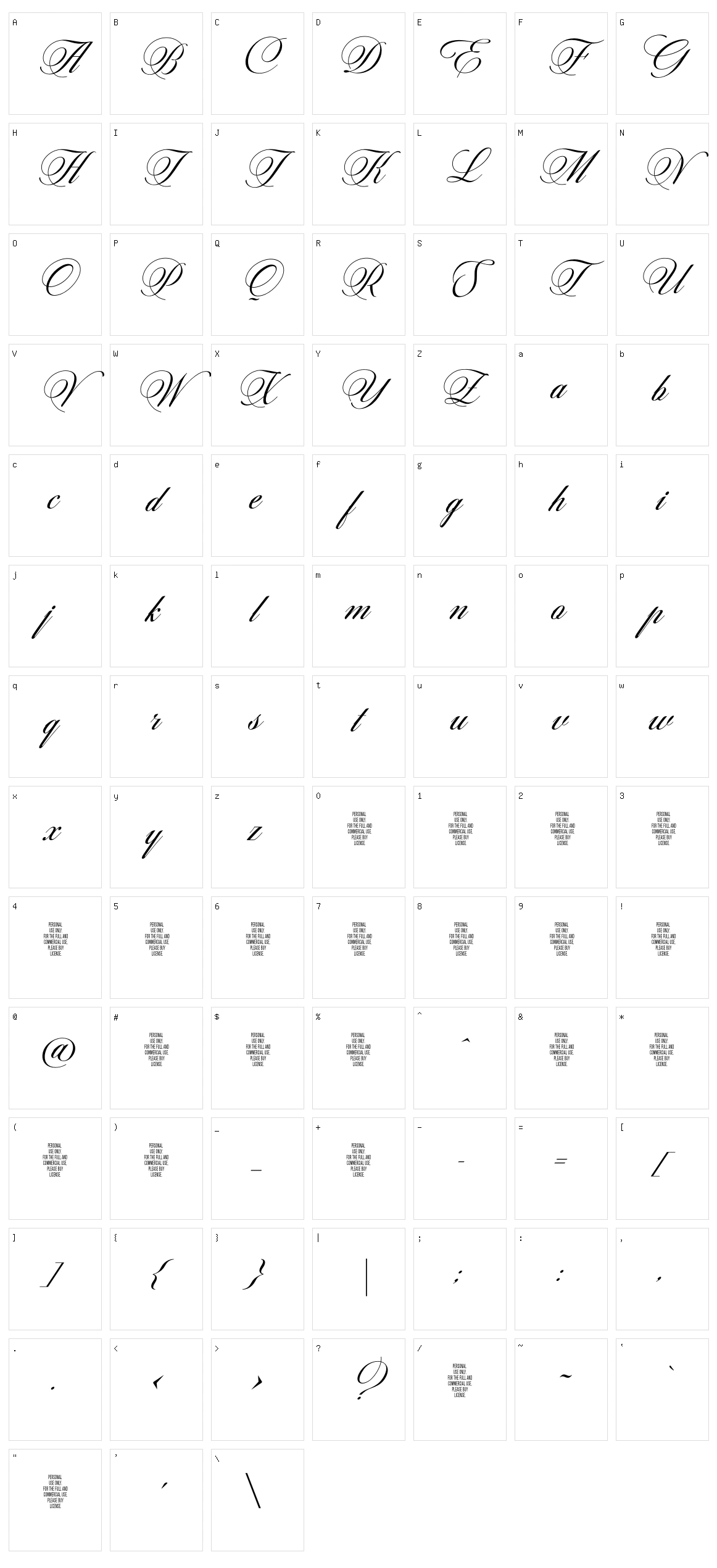
Thei font is a great calligraphy font, it contains ligature - type any Text========= so you can create and move decorative elements.
Don't change size during the process.
And also there is an alternative for lowercase. More